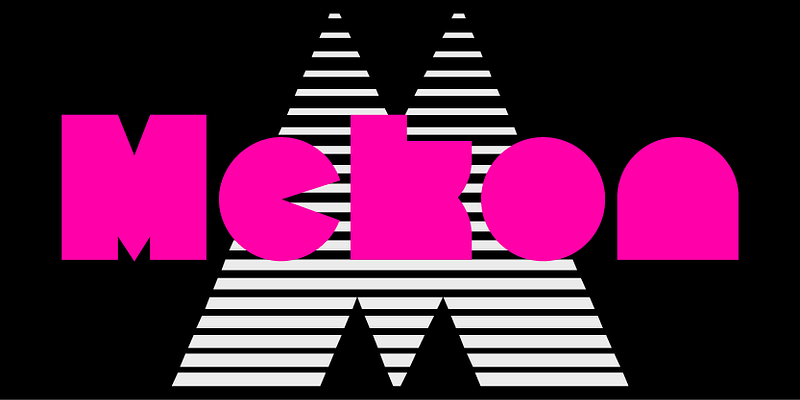
Mekon Font Free Download is a powerful, sci-fi-inspired display typeface with a bold, futuristic edge. Its strong geometric forms, angular cuts, and compact structure make it an excellent choice for tech branding, gaming titles, movie posters, and any design project that demands a modern, space-age look.
Perfect for use in headers, logos, and bold visuals, Mekon brings high-impact style while remaining legible and clean. It integrates smoothly with design platforms like Adobe Illustrator, Photoshop, and Figma, making it a go-to font for creatives aiming to push visual boundaries.